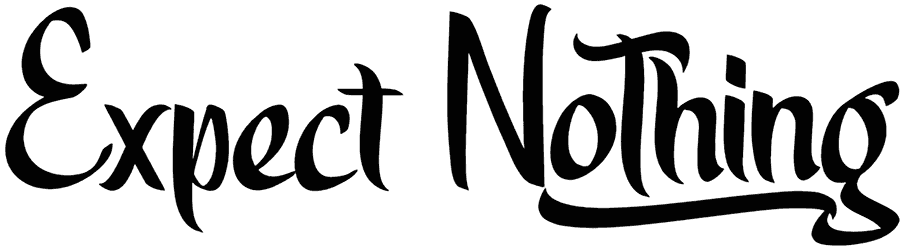
Expect Nothing Font
An enchanting surface of aesthetics arrives to take your designs to the next level! With a nice motivation of friendly effects, script font, today’s masterpiece rises to gain the champion of planning any signs, greeting cards, album covers, and so on.
This Expect Nothing font compensates for the lack of numbers by having an artistic outward and harmony with many themes. If you don’t want to be left behind, then review Resource Boy every day for the other surprises like this one.